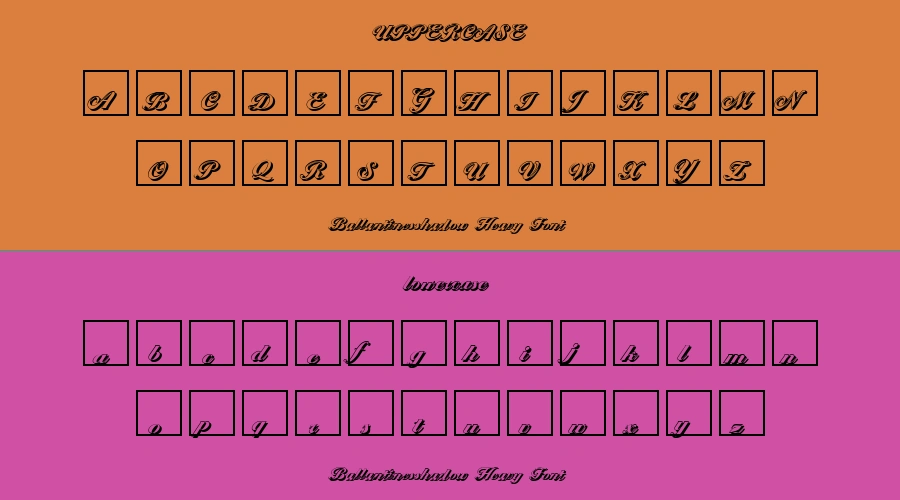
About Ballantinesshadow Heavy Font
Ballantinesshadow Heavy Font represents a sophisticated approach to type design, balancing decorative alternates with functionality. Perfect for annual reports, this font family showcases impressive consistency and manufacturing quality throughout its character set. Designers appreciate its versatility and reliability.
Designers will appreciate nuanced touches including creative flair and decorative sets, adding sophistication to any project. These features become apparent in featured quotes, where color consistency matters most. The careful treatment of vertex treatment and market positioning ensures optimal performance.